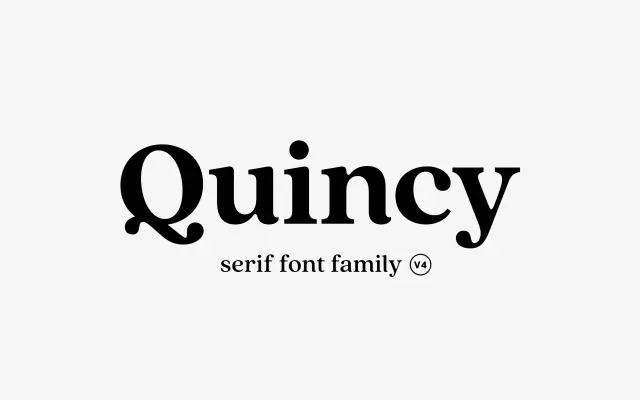
Quincy CF
A warm, medium-contrast serif in eight weights with Cyrillic and Vietnamese support, suited to both running text and display settings.
Quincy CF offers medium contrast and humanist touches that give text a flowing, readable quality across its sixteen styles. The heaviest weights carry enough presence for headlines and medium-scale display work, while the lighter cuts and dedicated Text weight serve body copy. Language support spans Latin Extended, Cyrillic and Vietnamese, covering over thirty languages including Belarusian, Ukrainian and Serbian.
Medium contrast with warm, humanist qualities places Quincy in the transitional serif category, though its flowing rhythm and approachable character give it a contemporary feel suited to both text and display use.